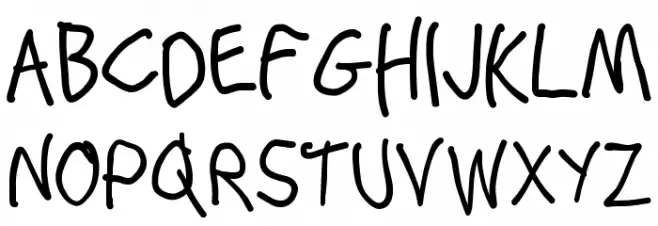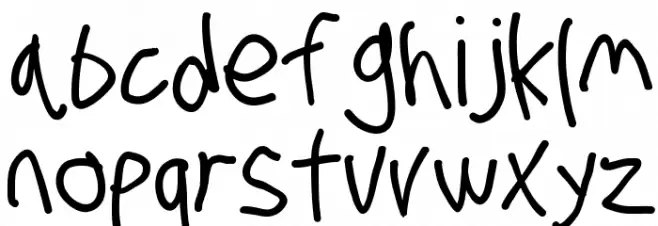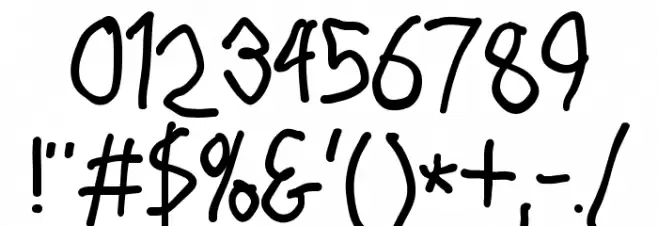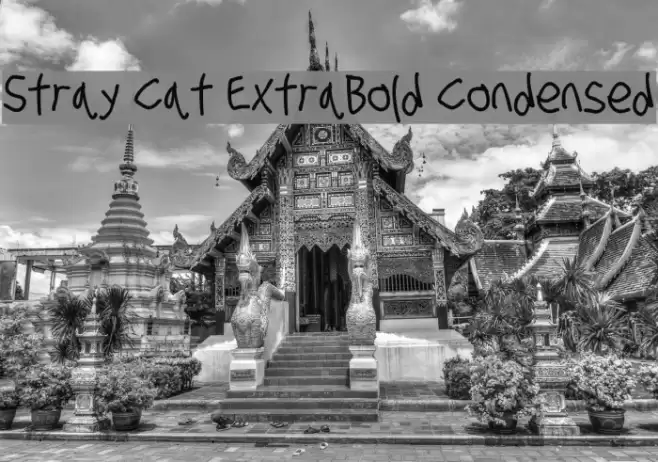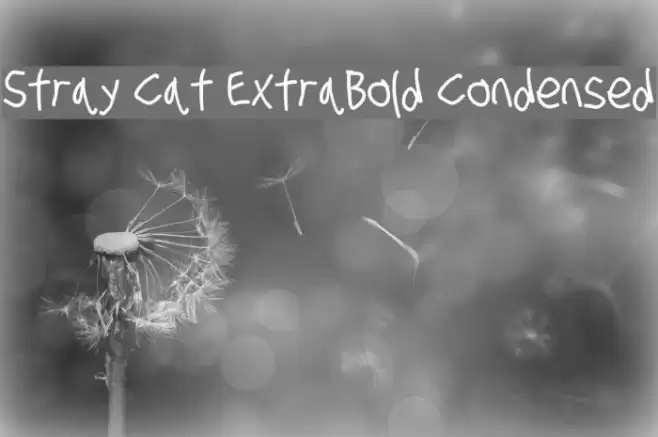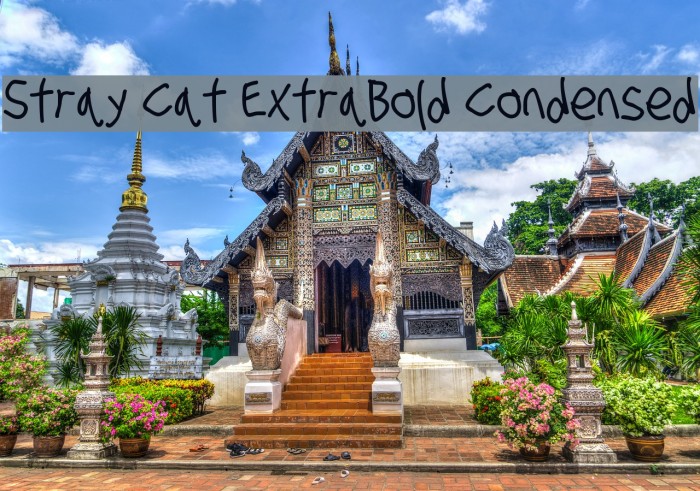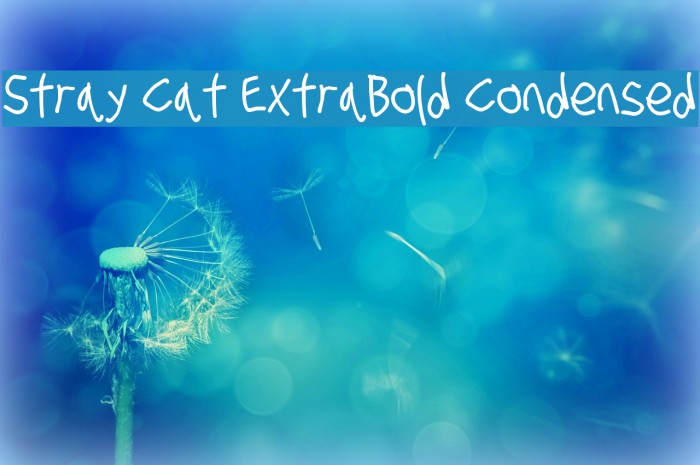
Stray Cat ExtraBold Condensed
This font features a playful and casual handwritten style, characterized by its bold and condensed letterforms. The strokes are thick and consistent, giving it a strong presence on the page. The letters have a slightly irregular, organic feel, reminiscent of quick, expressive handwriting. This style is approachable and friendly, making it suitable for informal and creative projects. The font includes a full set of uppercase and lowercase letters, numbers, and a variety of special characters, ensuring versatility in its application.
A bold, condensed handwritten font with a playful and casual style.
- Proposed Projects: Ideal for children's books, casual invitations, greeting cards, and playful branding projects.
- Width: Condensed
- Overall Style: Casual
- Use Case: Headlines, Informal text, Creative projects